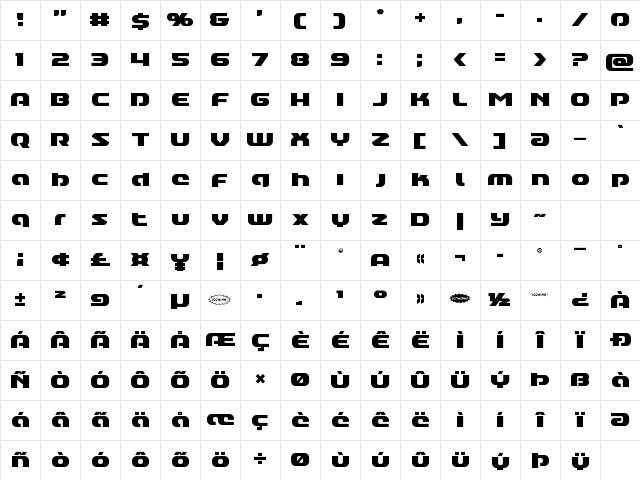
Annapolis Lower Case Regular Free Font
Annapolis Lower Case Regular
Annapolis Lower Case Family
Design Context for Annapolis Lower Case
Annapolis Lower Case is a composed and adaptable typeface that performs quietly and consistently across a wide range of design contexts.